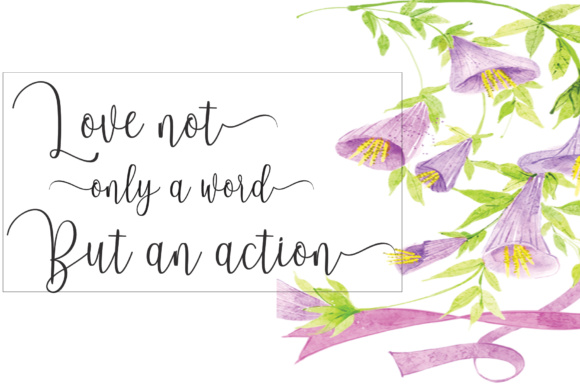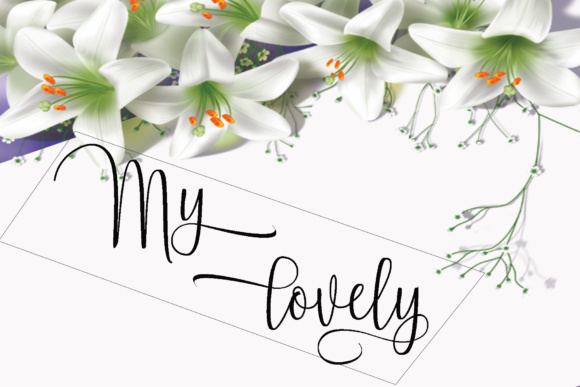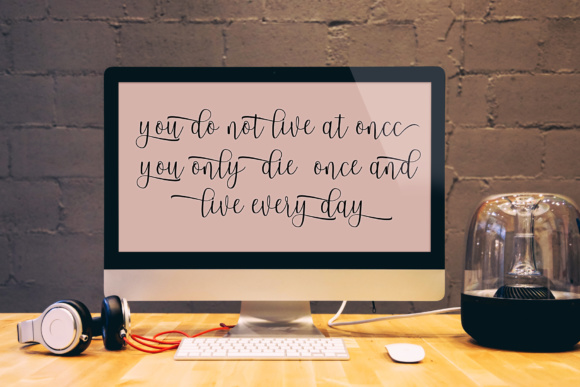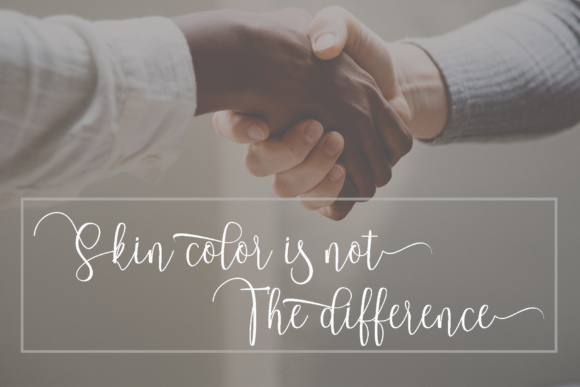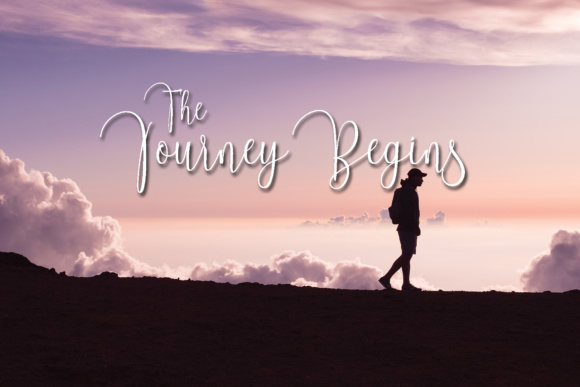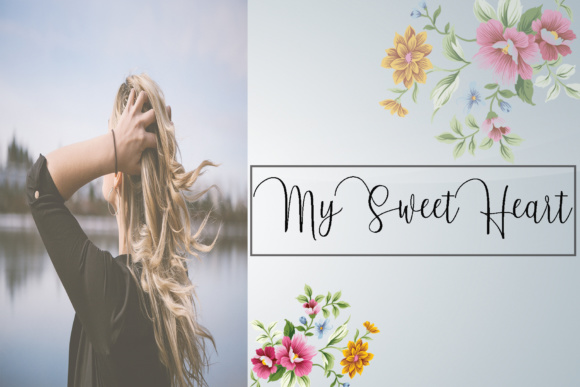
Introducing Almonds Script Font: The Perfect Modern Calligraphy Typeface
Are you looking for a font that adds a touch of elegance and sophistication to your designs? Look no further than Almonds Script Font, a modern calligraphy typeface that is perfect for a variety of creative projects. In this article, we’ll take a closer look at the features and benefits of Almonds Script Font, and explore how you can use it to elevate your designs.
What is Almonds Script Font?
Almonds Script Font is a beautifully crafted modern calligraphy typeface that has been handwritten with its own unique characteristics. The font features flowing lines, elegant curves, and a sophisticated feel that is perfect for adding a touch of luxury to your designs. Whether you’re creating invitations, signatures, blogs, social media graphics, or any other type of design, Almonds Script Font is the perfect choice.
Key Features of Almonds Script Font
- Modern Calligraphy Style: Almonds Script Font features a modern calligraphy style that is perfect for creating elegant and sophisticated designs.
- Handwritten with Unique Characteristics: The font has been handwritten with its own unique characteristics, giving it a personal and distinctive feel.
- Perfect for a Variety of Projects: Almonds Script Font is perfect for a variety of creative projects, including invitations, signatures, blogs, social media graphics, and more.
- Elegant and Sophisticated: The font features flowing lines, elegant curves, and a sophisticated feel that is perfect for adding a touch of luxury to your designs.
Benefits of Using Almonds Script Font
There are many benefits to using Almonds Script Font in your designs. Here are just a few:
- Adds Elegance and Sophistication: Almonds Script Font adds a touch of elegance and sophistication to your designs, making it perfect for high-end brands and luxury products.
- Versatile: The font is versatile and can be used for a variety of creative projects, from invitations and signatures to blogs and social media graphics.
- Easy to Read: Despite its elegant and sophisticated feel, Almonds Script Font is easy to read, making it perfect for use in body text and other applications where readability is important.
- Unique and Distinctive: The font has a unique and distinctive feel that will help your designs stand out from the crowd.
How to Use Almonds Script Font
Almonds Script Font is easy to use and can be incorporated into a variety of creative projects. Here are a few ideas to get you started:
- Invitations: Use Almonds Script Font to create beautiful and elegant invitations for weddings, parties, and other special events.
- Signatures: Add a touch of sophistication to your email signatures and other digital communications with Almonds Script Font.
- Blogs: Use Almonds Script Font to create beautiful and elegant blog headers, titles, and other design elements.
- Social Media Graphics: Add a touch of luxury to your social media graphics with Almonds Script Font.
Tips for Getting the Most Out of Almonds Script Font
Here are a few tips for getting the most out of Almonds Script Font:
- Use it Sparingly: While Almonds Script Font is beautiful and elegant, it can be overwhelming if used too much. Use it sparingly to add a touch of sophistication to your designs.
- Pair it with Other Fonts: Almonds Script Font pairs well with a variety of other fonts. Experiment with different pairings to find the one that works best for your design.
- Experiment with Different Colors: Almonds Script Font looks great in a variety of colors. Experiment with different colors to find the one that works best for your design.
| Font Name | Almonds Script Font |
| Author | Polem |
Almonds Script Font is a beautiful and elegant modern calligraphy typeface that is perfect for adding a touch of sophistication to your designs. With its unique characteristics, elegant feel, and versatility, it’s the perfect choice for a variety of creative projects. Whether you’re a designer, crafter, or simply someone who appreciates beautiful typography, Almonds Script Font is sure to impress.